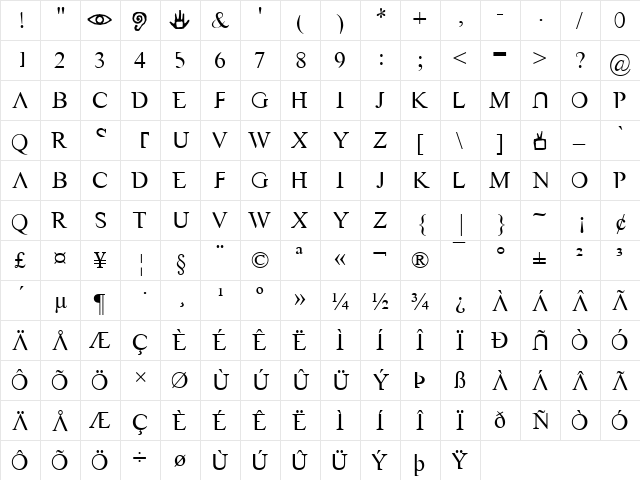
VAST Naked
Design Context for VAST Typeface
VAST takes a measured approach to typography — its balanced proportions and neutral character make it a reliable workhorse for both digital and print work.